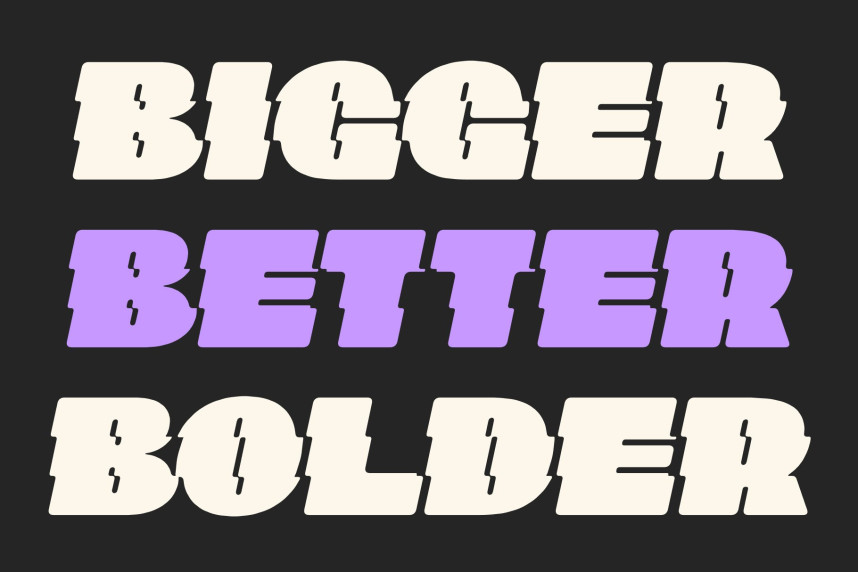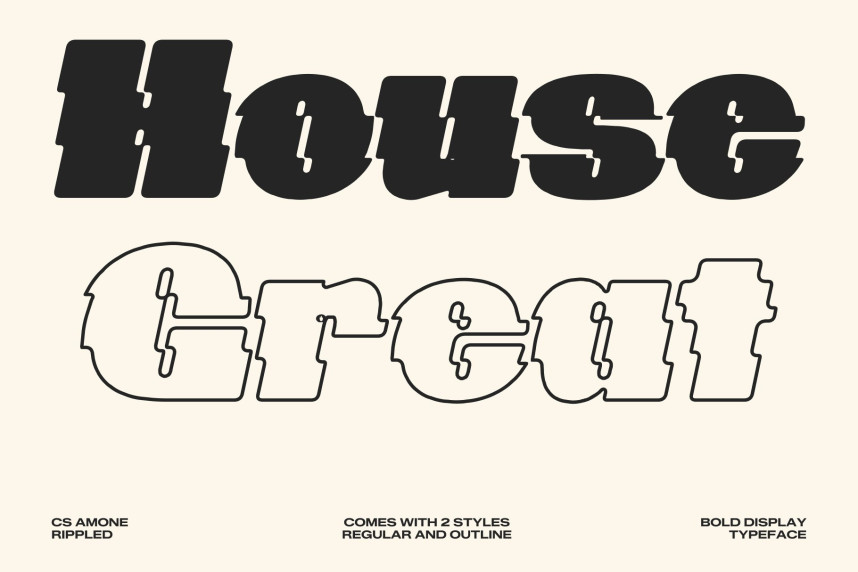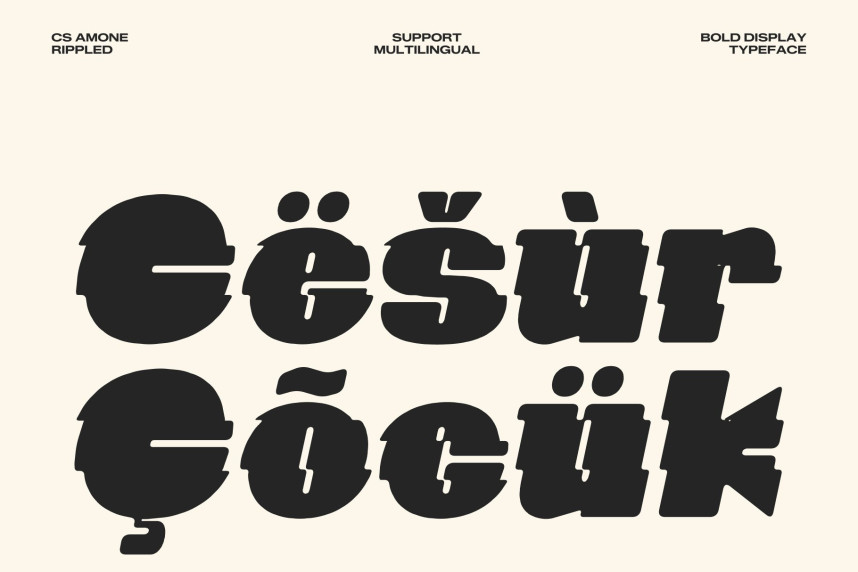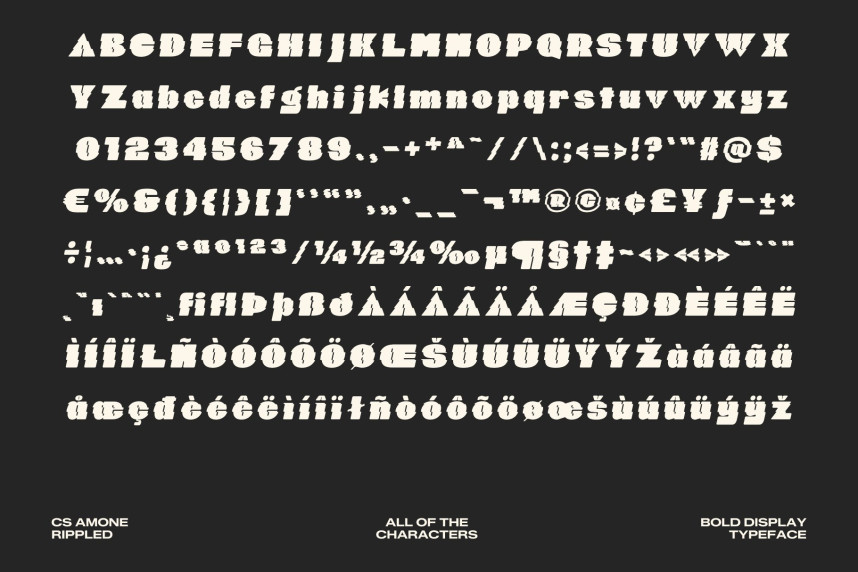
CS Amone Rippled Font
CS Amone Rippled Font – Bold Display Font with Liquid Strength and Authority
Bold Display Sans Serif Built for Impact
This is a bold display sans serif font designed to project strength, confidence, and unmistakable presence. Its heavy strokes and commanding proportions create a powerful visual foundation that immediately captures attention. Every letter is engineered to feel intentional and assertive, transforming simple words into strong visual statements.